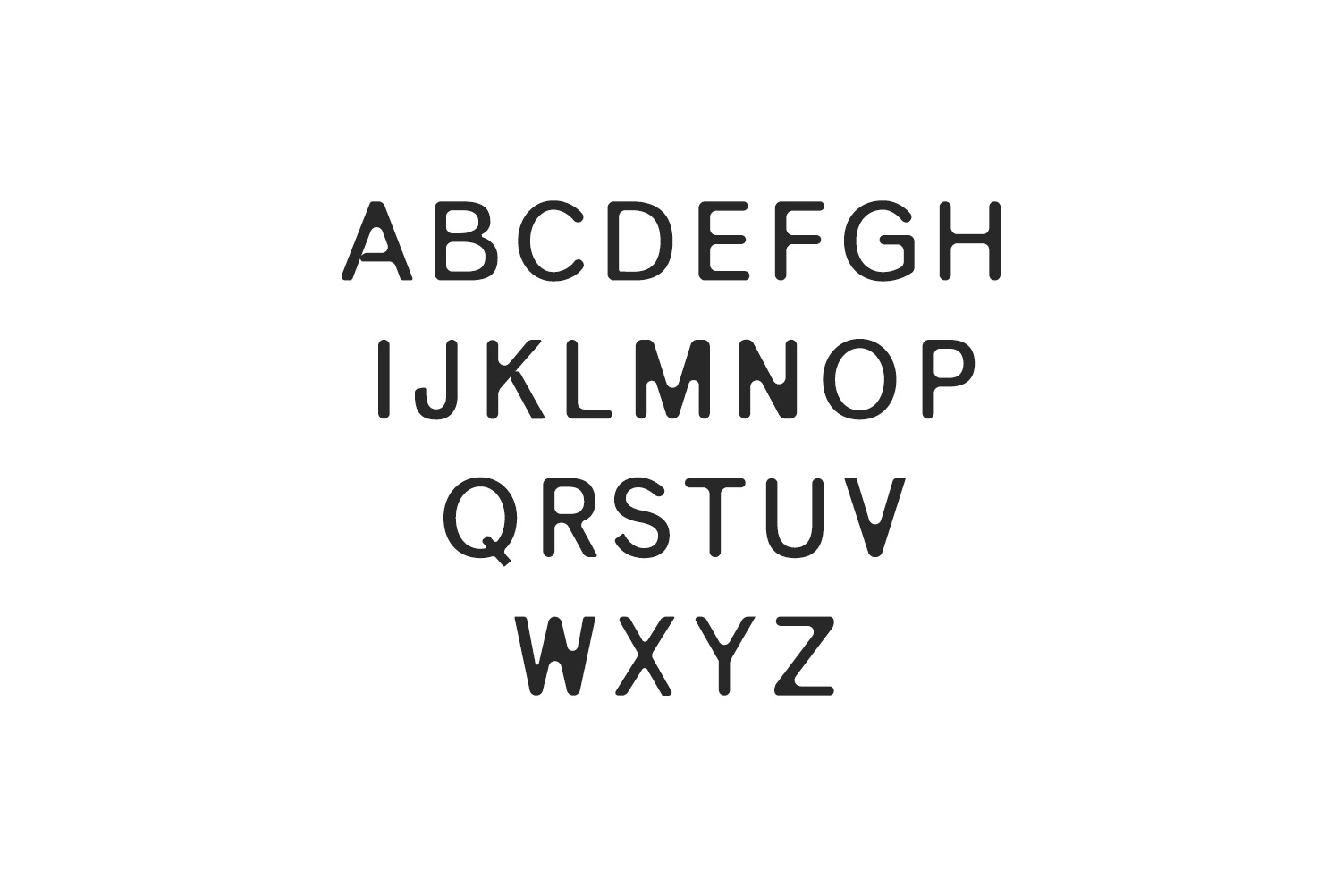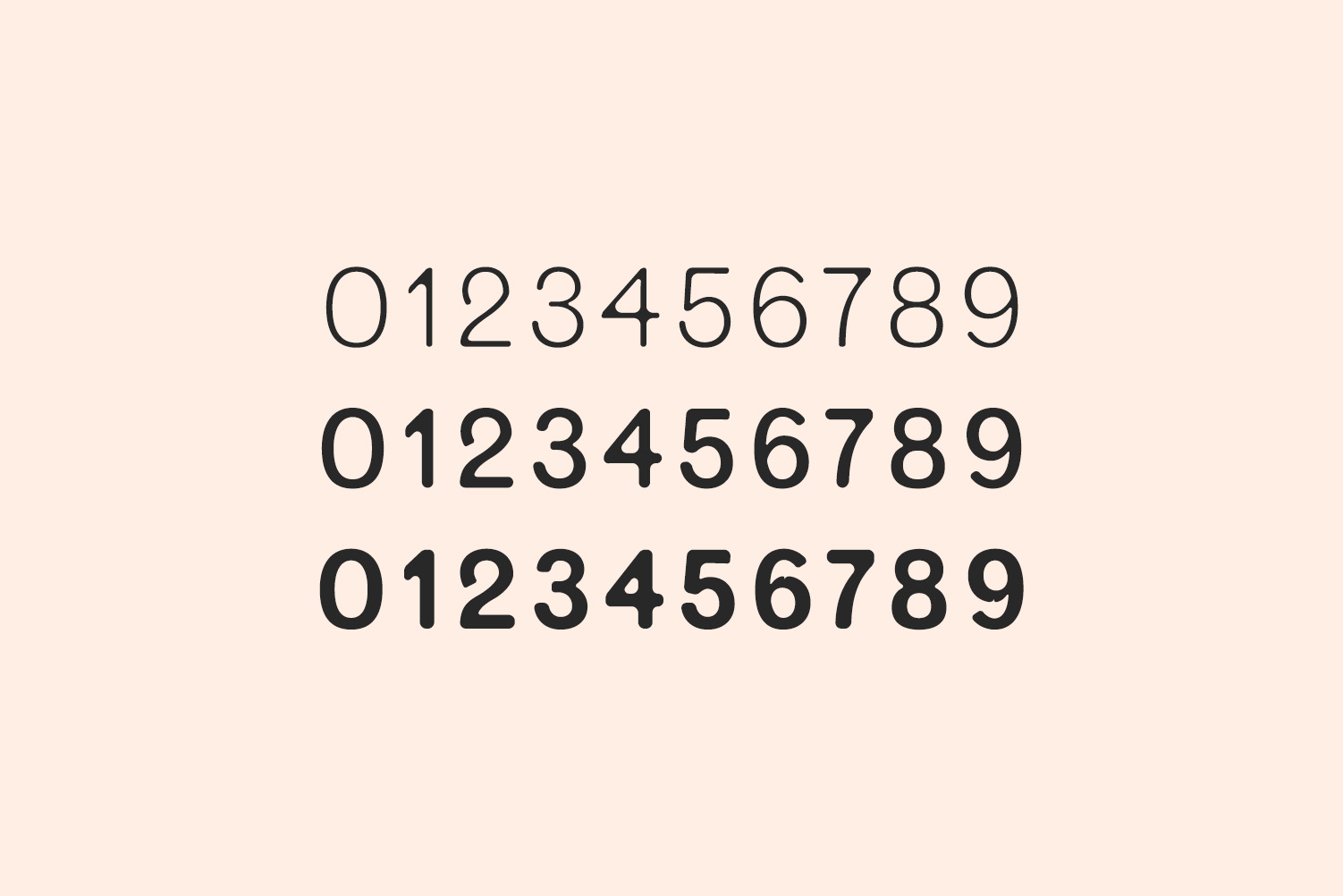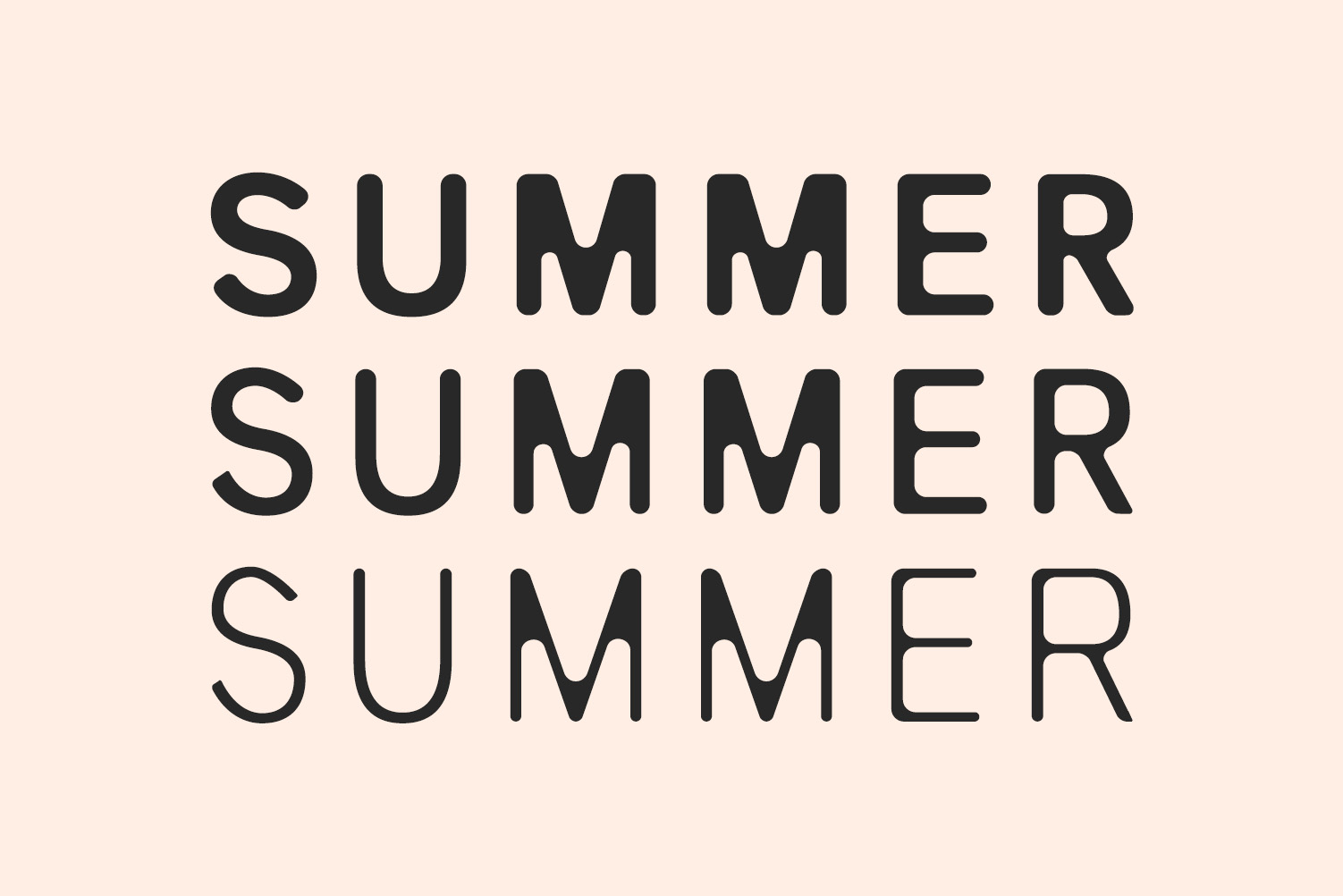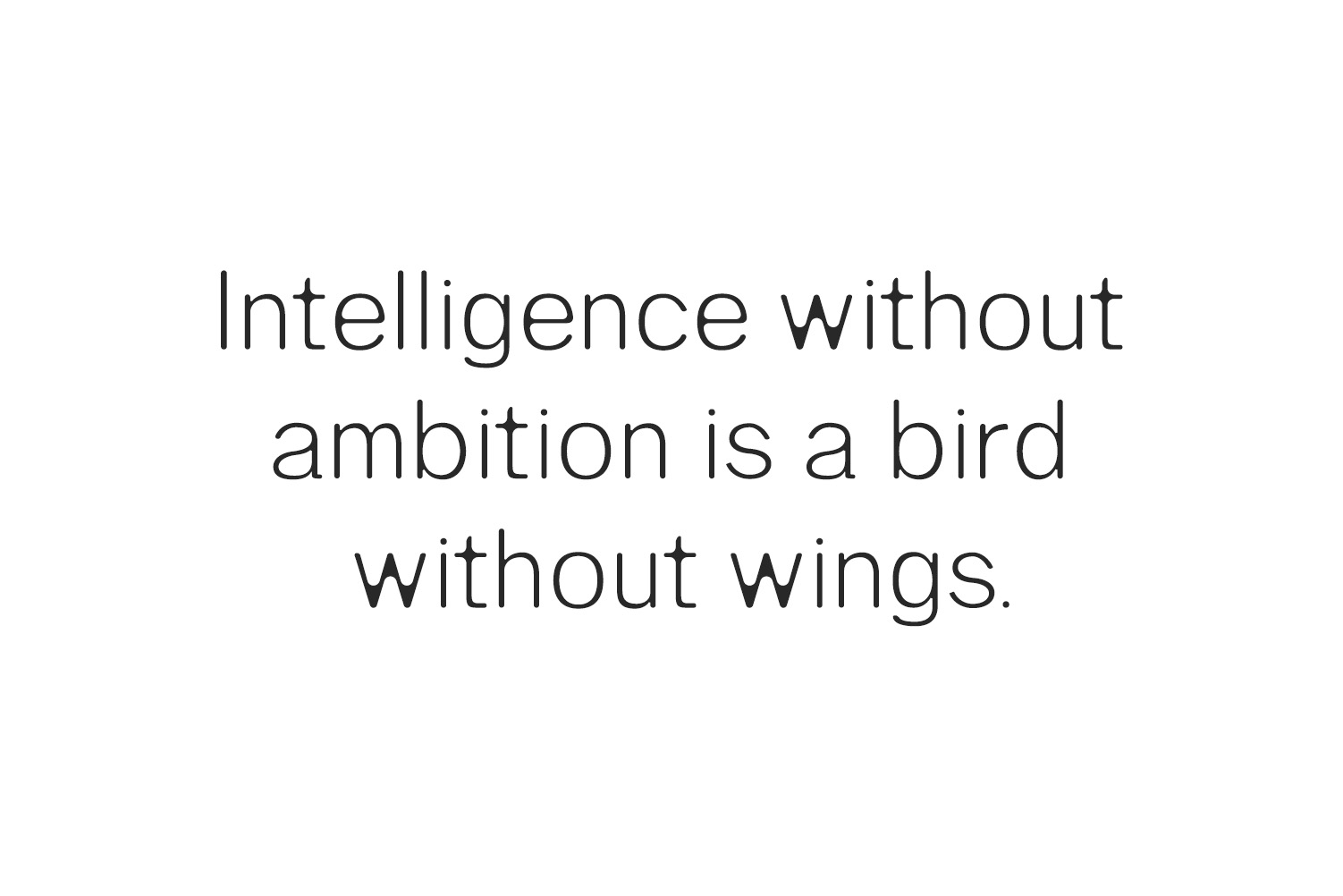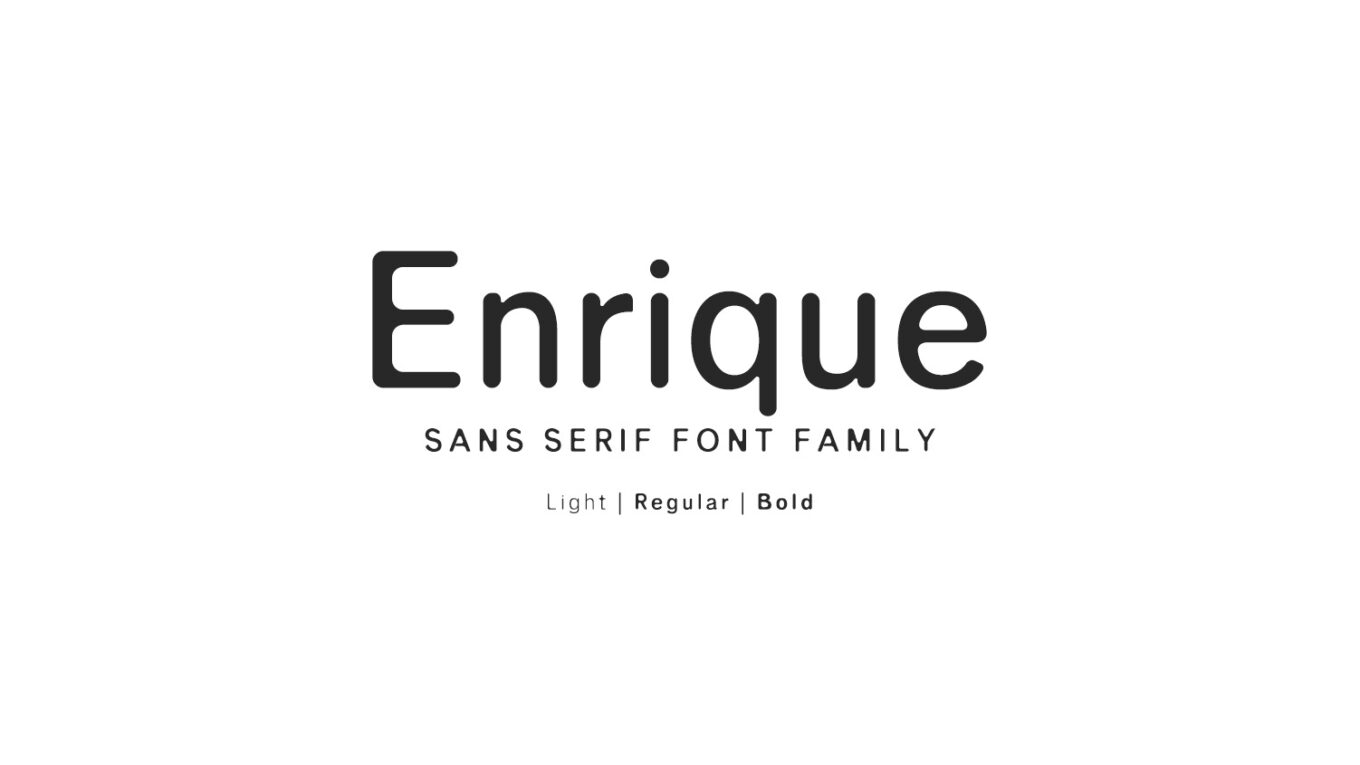
Discover the Unique Charm of Enrique Font: A Beautiful Sans Serif for Your Designs
In the world of typography, finding the perfect font that adds a touch of personality to your designs can be a daunting task. However, if you’re looking for a beautiful and clean sans serif font that brings a sense of imperfection and irregularity to your work, look no further than Enrique Font. Enrique Round, part of the Enrique font family, is an exceptional choice for designers and crafters seeking to add a unique flair to their projects.
The Beauty of Enrique Round
Enrique Round is a stunning sans serif font that boasts a clean and elegant appearance, making it ideal for creating well-constructed designs. What sets it apart, however, is its subtle touch of imperfection and irregularity, which adds a layer of uniqueness and charm to any project. This distinctive characteristic makes Enrique Round a standout choice for designers looking to infuse their work with a bit of personality.
Ideal for Display and Headline Use
One of the key strengths of Enrique Round is its exceptional performance as a display or headline font. Its clean lines and elegant curves make it a gorgeous addition to any design, capable of giving your work a ton of grace and style. Whether you’re working on a branding project, a website, or a print design, Enrique Round can elevate your headlines and make them truly pop.
Enrique Round’s versatility is another one of its appealing qualities. While it shines as a display font, its legibility and clarity also make it suitable for use in other design elements, such as titles, subtitles, and even body text, depending on the specific requirements of your project. This versatility allows designers to maintain consistency in their typography while exploring different aspects of their design.
Adding a Touch of Imperfection
The subtle imperfections in Enrique Round contribute to its charm, offering a refreshing departure from the precision often found in digital typography. This touch of human-like irregularity can make your designs feel more approachable and less sterile, providing a unique aesthetic that can engage your audience on a different level.
Why Choose Enrique Font?
When it comes to selecting a font for your design project, there are several reasons why Enrique Font, particularly Enrique Round, stands out:
- Unique Aesthetic: Enrique Round offers a beautiful blend of cleanliness and subtle irregularity, making it perfect for designers looking for something beyond the standard sans serif fonts.
- Versatility: Its suitability for display, headlines, and potentially other text elements, depending on the project, makes it a versatile addition to any design toolkit.
- Elegance and Style: Enrique Round brings a level of sophistication and elegance to designs, capable of enhancing the visual appeal of any project.
Tips for Using Enrique Round Effectively
To make the most of Enrique Round in your designs, consider the following tips:
- Pair with Complementary Fonts: While Enrique Round can be stunning on its own, pairing it with complementary fonts can further enhance your design. Look for fonts that contrast with its sans serif and slightly irregular style to create visual interest.
- Experiment with Sizes and Weights: Don’t be afraid to experiment with different sizes and weights of Enrique Round. This can help in creating a visual hierarchy in your design and add depth to your typography.
- Consider the Context: Think about where your design will be used and adjust your use of Enrique Round accordingly. Its elegance and uniqueness can shine in digital media, print materials, or any other platform where typography plays a crucial role.
Enrique Font, with its beautiful and clean sans serif style, offers designers a unique opportunity to add a touch of elegance and imperfection to their work. Enrique Round, in particular, stands out as a versatile and stylish choice, ideal for creating well-constructed designs with a bit of character. Whether you’re a professional designer or a crafter, incorporating Enrique Round into your projects can elevate your typography and give your designs a distinctive charm that’s sure to captivate your audience.